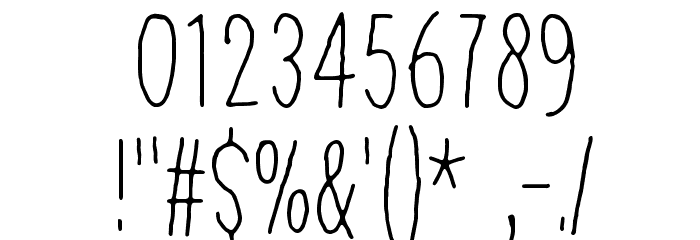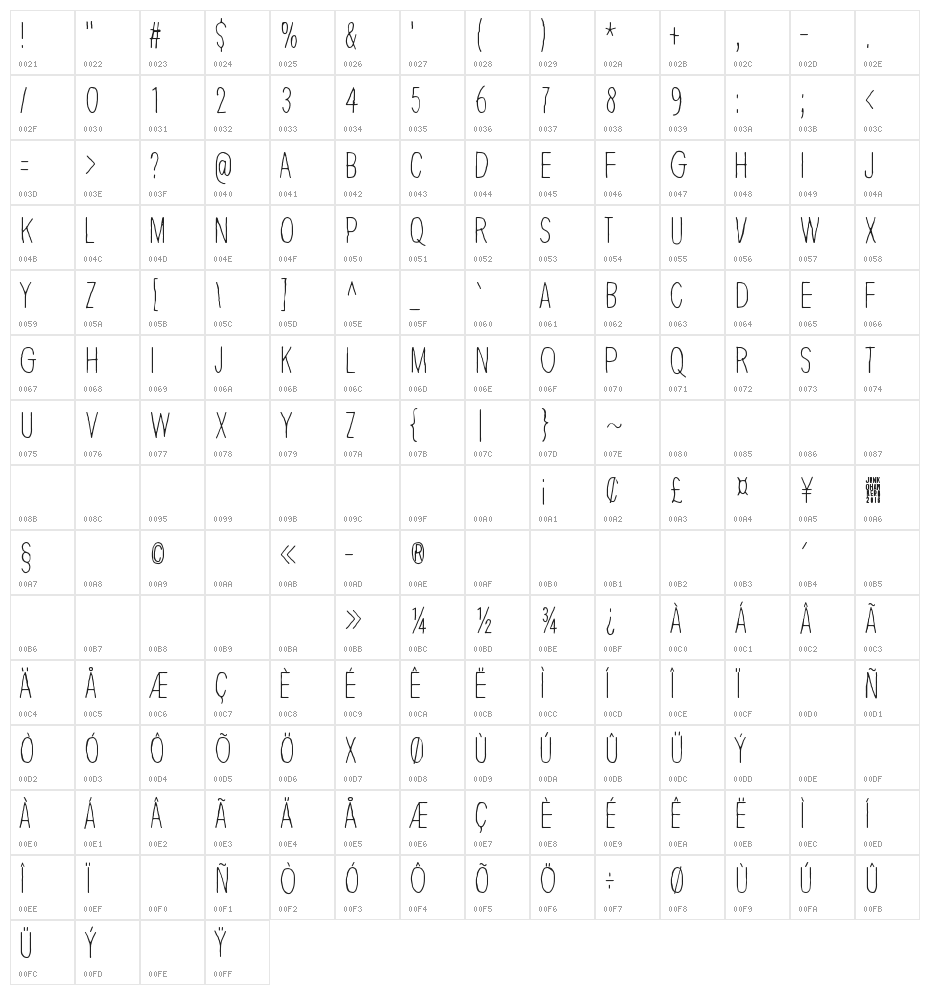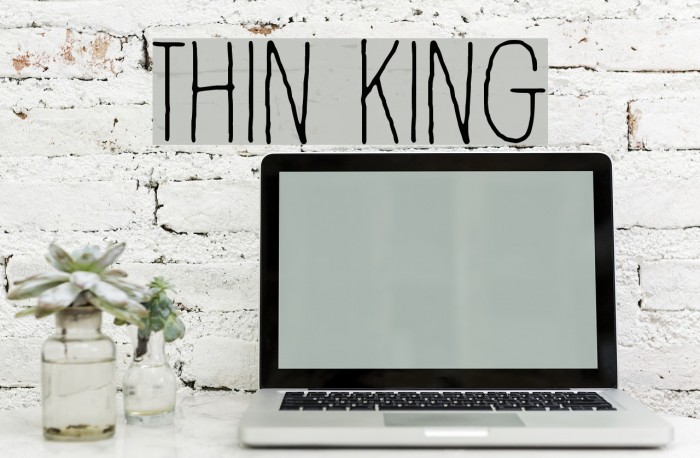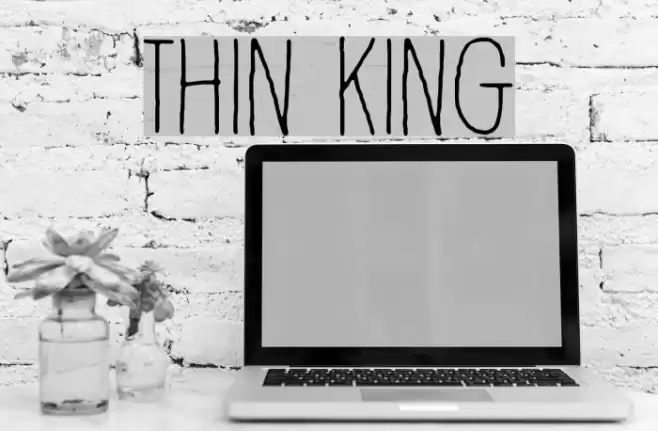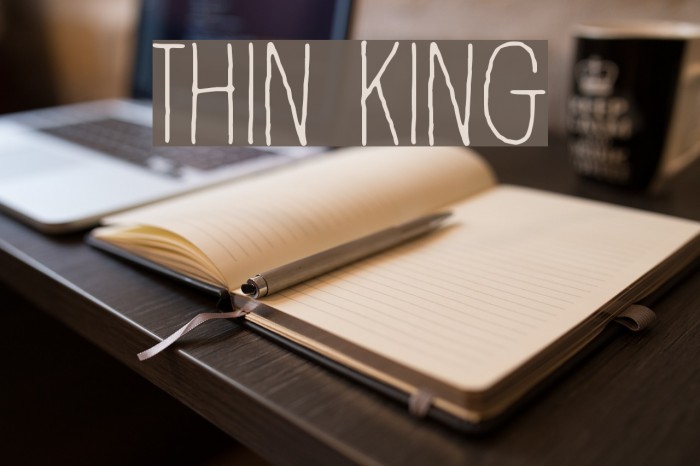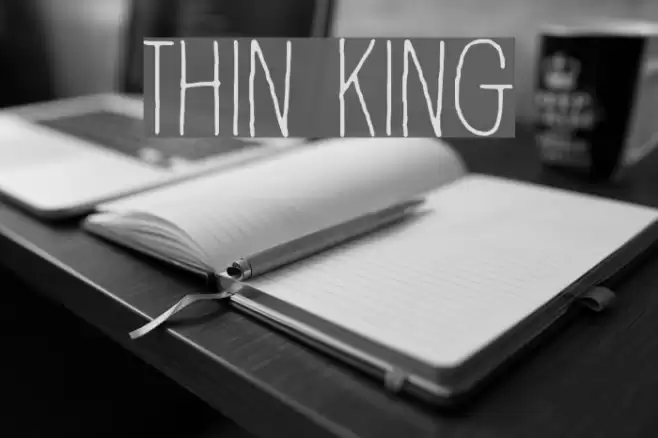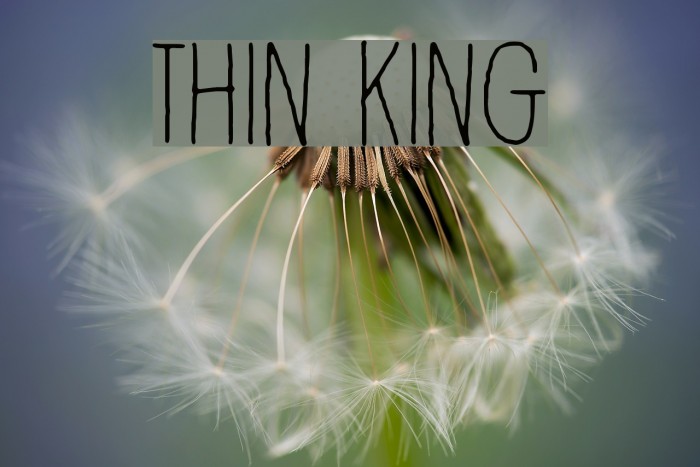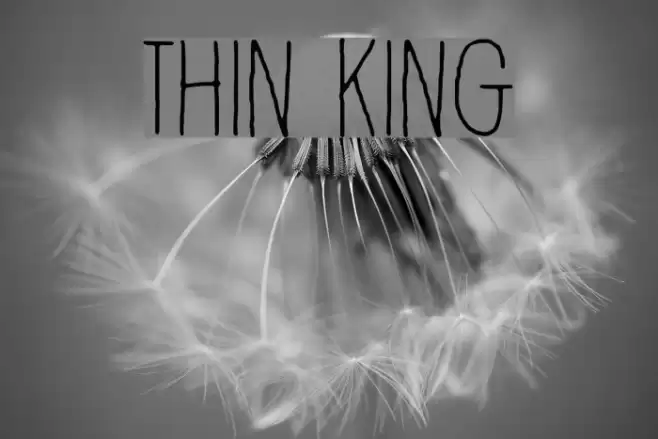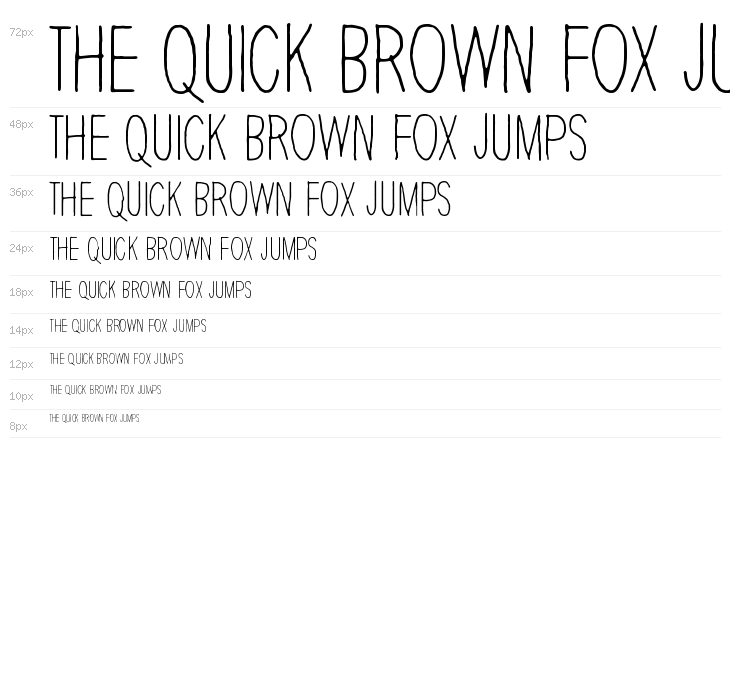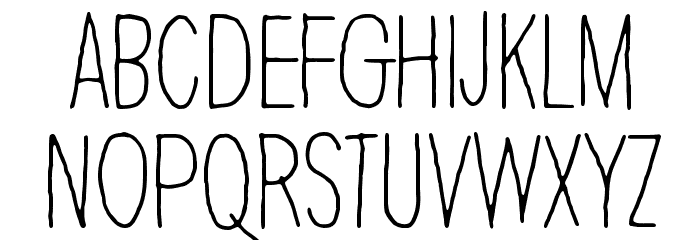
Thin king Font
Thin king Description
This font features a hand-drawn, casual style with a thin and slightly irregular stroke, giving it a playful and informal appearance. The characters are tall and narrow, with a slight wobble that adds to its charm. The uppercase and lowercase letters maintain a consistent height, while the numbers and special characters follow the same thin and whimsical design. The overall look is reminiscent of handwriting, making it suitable for projects that require a personal touch. The font's simplicity and legibility make it versatile for various design applications.
| Proposed Projects | Ideal for greeting cards, children's books, casual branding, and DIY projects. |